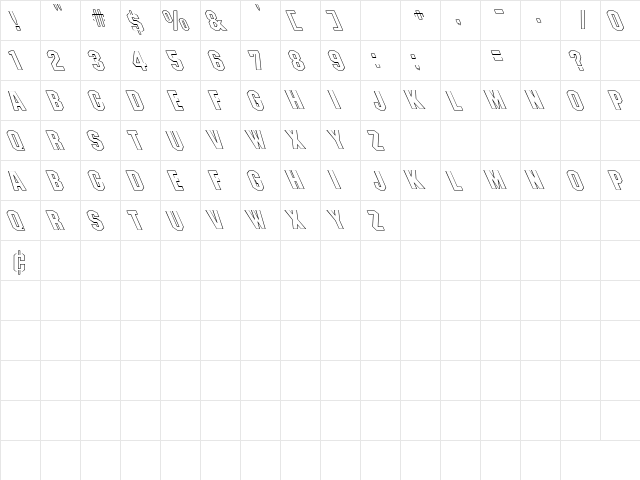
Machiavelli Bld Hollow Lefti Regular
Design Context for Machiavelli Bld Hollow Lefti Typeface
Machiavelli Bld Hollow Lefti offers clean, dependable letterforms without strong stylistic allegiance, making it a practical choice for designers who need flexibility.